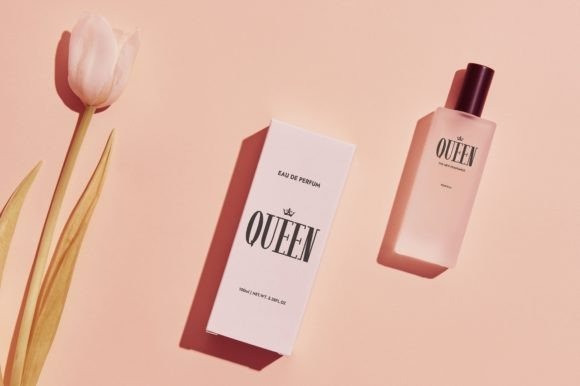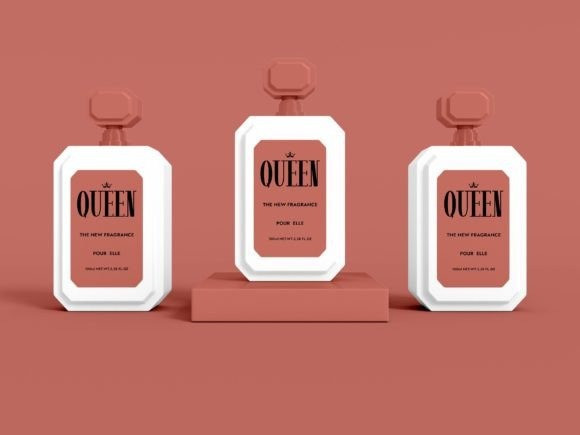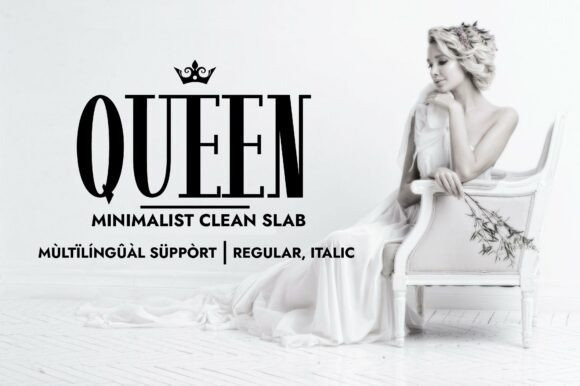
Queen Font
Queen Font is a great luxurious elegant typeface, designed keeping in mind the goal of achieving the maximum luxury impact and the elegant aspect that glyphs can express. Use it in your web design, packaging design, perfume design, magazine cover design, and social posts, and you will notice how effortlessly takes your creations to the next level!